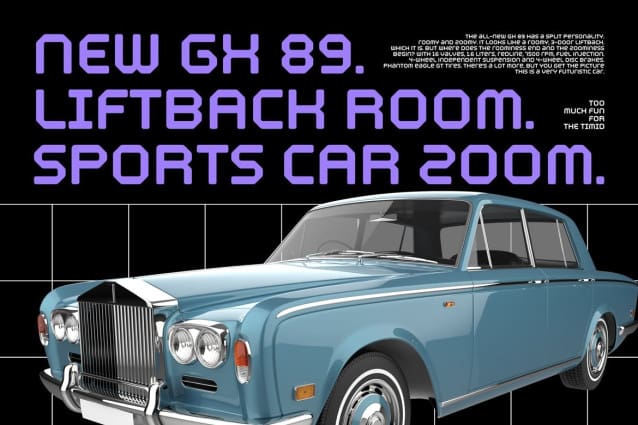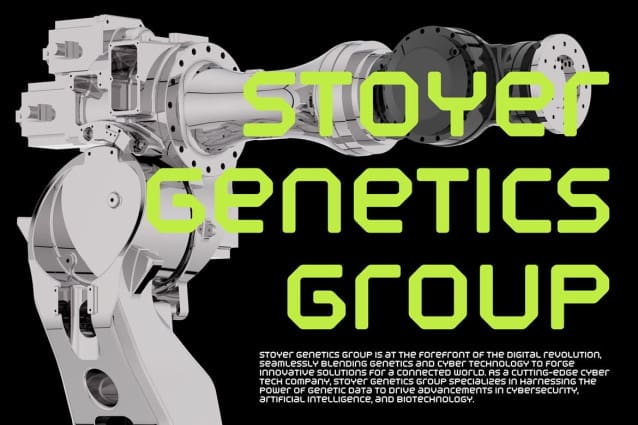
Cosmic Vortex Font
Cosmic Vortex Font, a sleek, monospaced-inspired typeface merging space’s elegance with tech precision. Ideal for futuristic designs, coding, and global projects, it redefines readability while offering customization options. Elevate your typography with CosmicVortex – where the cosmos meets cutting-edge design.